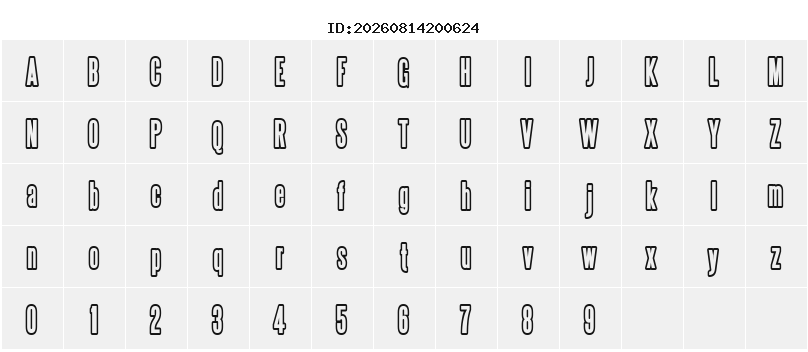
Steelfish Outline Preview
• Font Name: Steelfish Outline
• Font ID: RayLarabie: Steelfish Outline: 2002
• Full Font Name: Steelfish Outline
• Version: Version 1.0; 2001; initial release
• PostScript Name: SteelfishOutline
About Steelfish Outline.ttf
Steelfish Outline.ttf is a modern, elegant sans-serif font designed for ultimate readability and visual harmony. Perfect for branding, headlines, web design, and print materials.